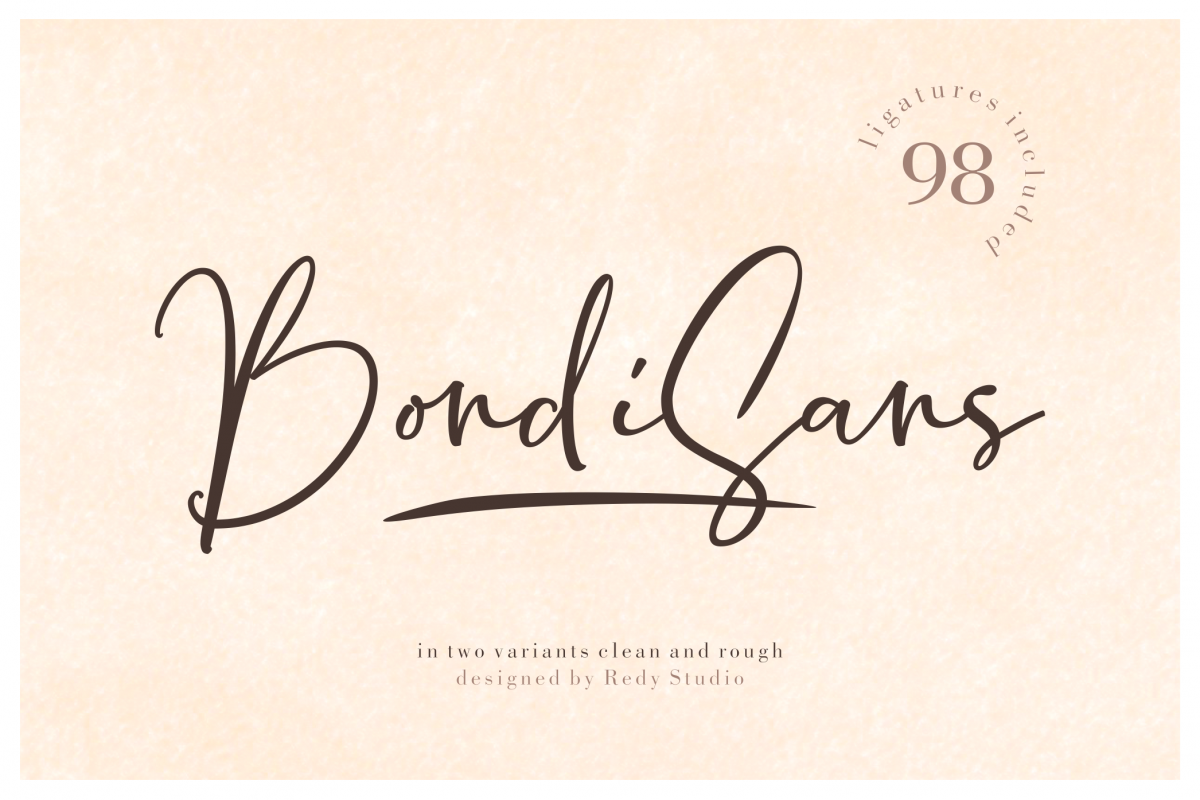
2Variants | BondiSans | Clean&Rough
Introduce BondiSans, is a bold messy, casual, carefree script with lovely and Comes with 98 ligatures for a totally unique hand-written feel. Bondisans consists of 2 variants, which are clean and rough, you can see more in the preview. BondiSans Font is great for logo, printed quotes, badge, insignia, packaging, headline, greeting card, and wedding invitation, & etc.
BondiSans Features :
• Standard alphabet and punctuation
• 98 Ligatures (ab af ah ak al am an ap ar as at ay ant aff att bb bl cb ch ck cl ct dd eb ef eh ek el em en ep er es et ey est ent eff ett ff gh gt ib if ih ik il im in ip ir is it iy ist int iff itt ll ms ns oo ob of oh ok ol om on op or os ot oy ost ont off ott rr ss st tt ub uf uh uk ul um un up ur us ut uy ust unt uff utt wh)
• Multilingual Support (ÀÁÂÃÄÅCÇDÐEÈÉÊËIÌÍÎÏNÑÒÓÔÕÖÙÜÚÛÝŸỲŸß)